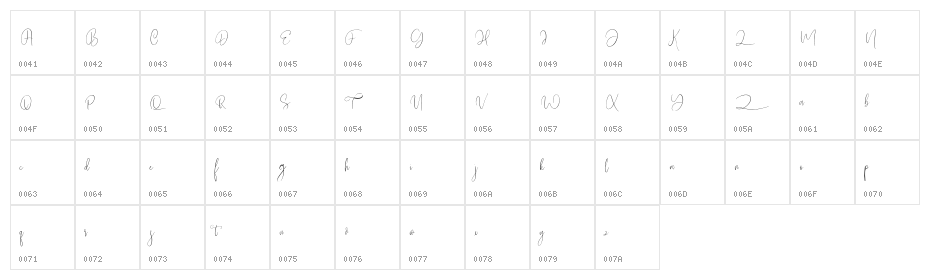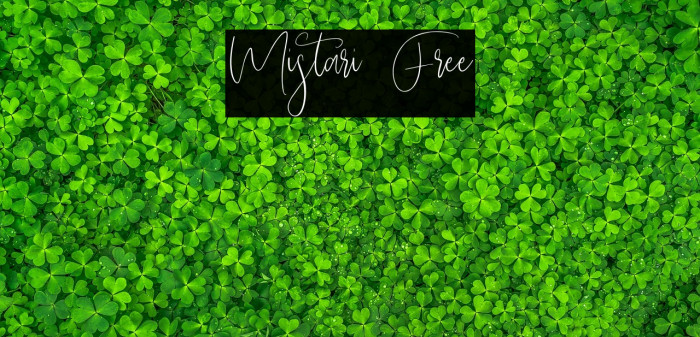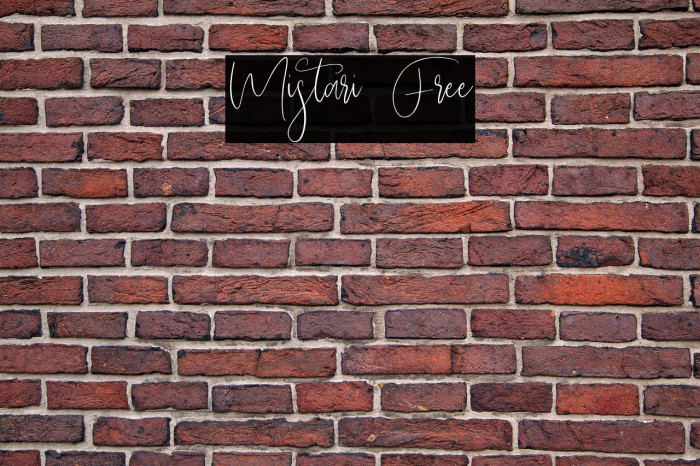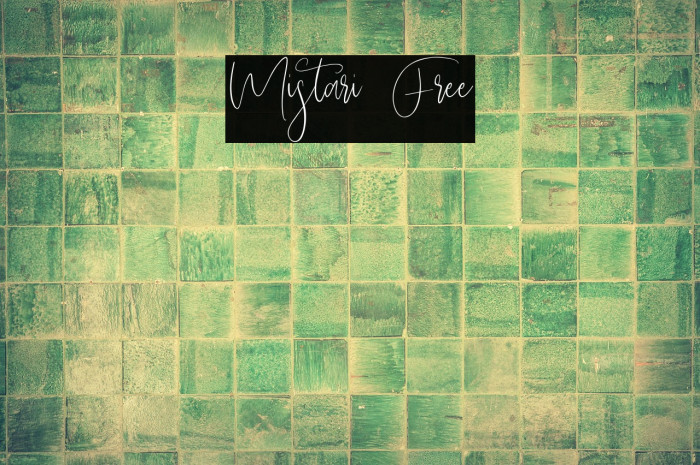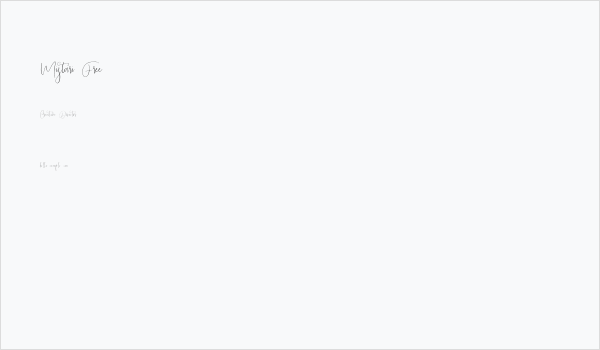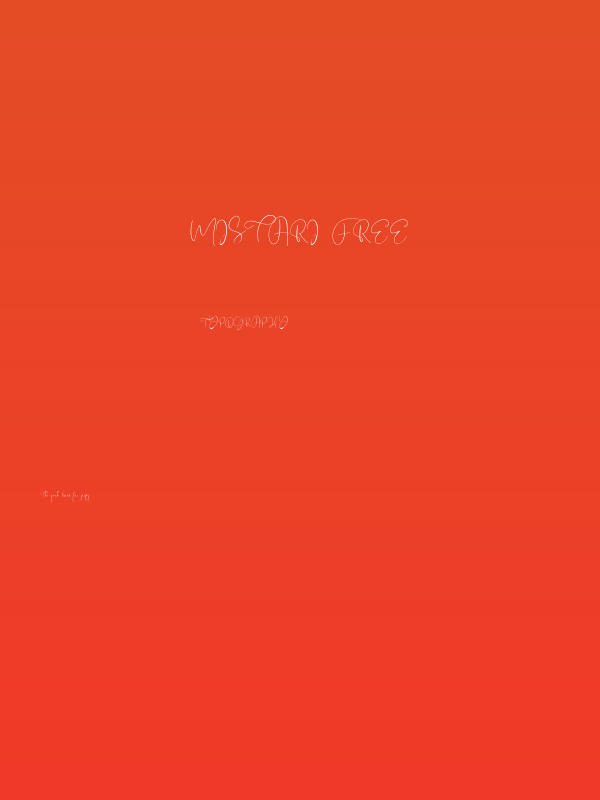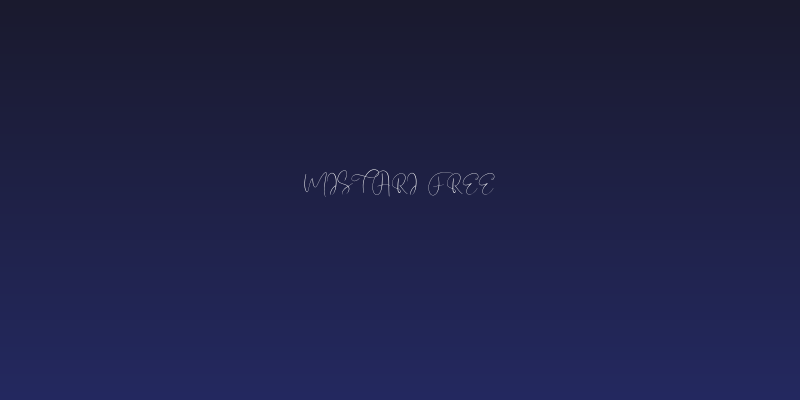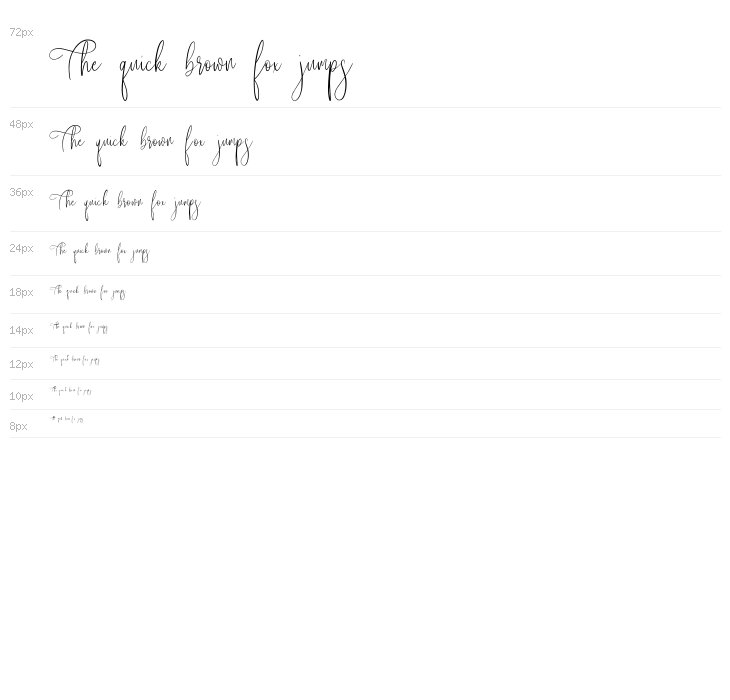
Mistari Free Font
Mistari Free Description
This font features an elegant, flowing script style with a delicate and sophisticated appearance. The characters are interconnected with graceful loops and swirls, creating a sense of fluidity and movement. The uppercase letters are particularly ornate, with extended strokes and flourishes that add a touch of drama. The lowercase letters maintain a consistent style, with smooth curves and a slightly narrower form. The overall design is airy and light, making it suitable for projects that require a touch of elegance and refinement. The font includes a full set of uppercase and lowercase letters, numbers, and a selection of special characters, all maintaining the same intricate style.
Use CaseLogos, Invitations, Decorative text
Proposed ProjectsIdeal for wedding invitations, elegant branding, greeting cards, and decorative projects.